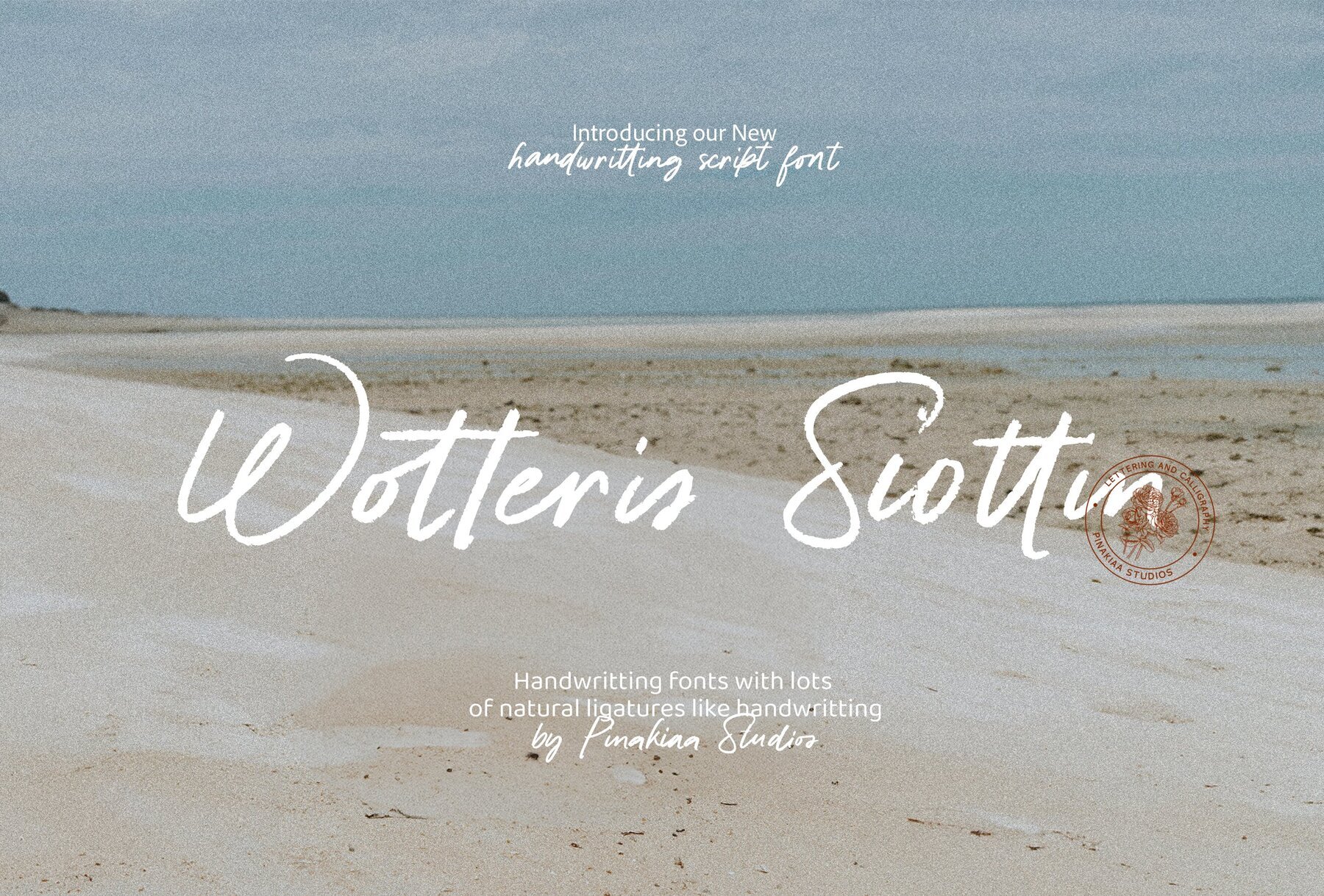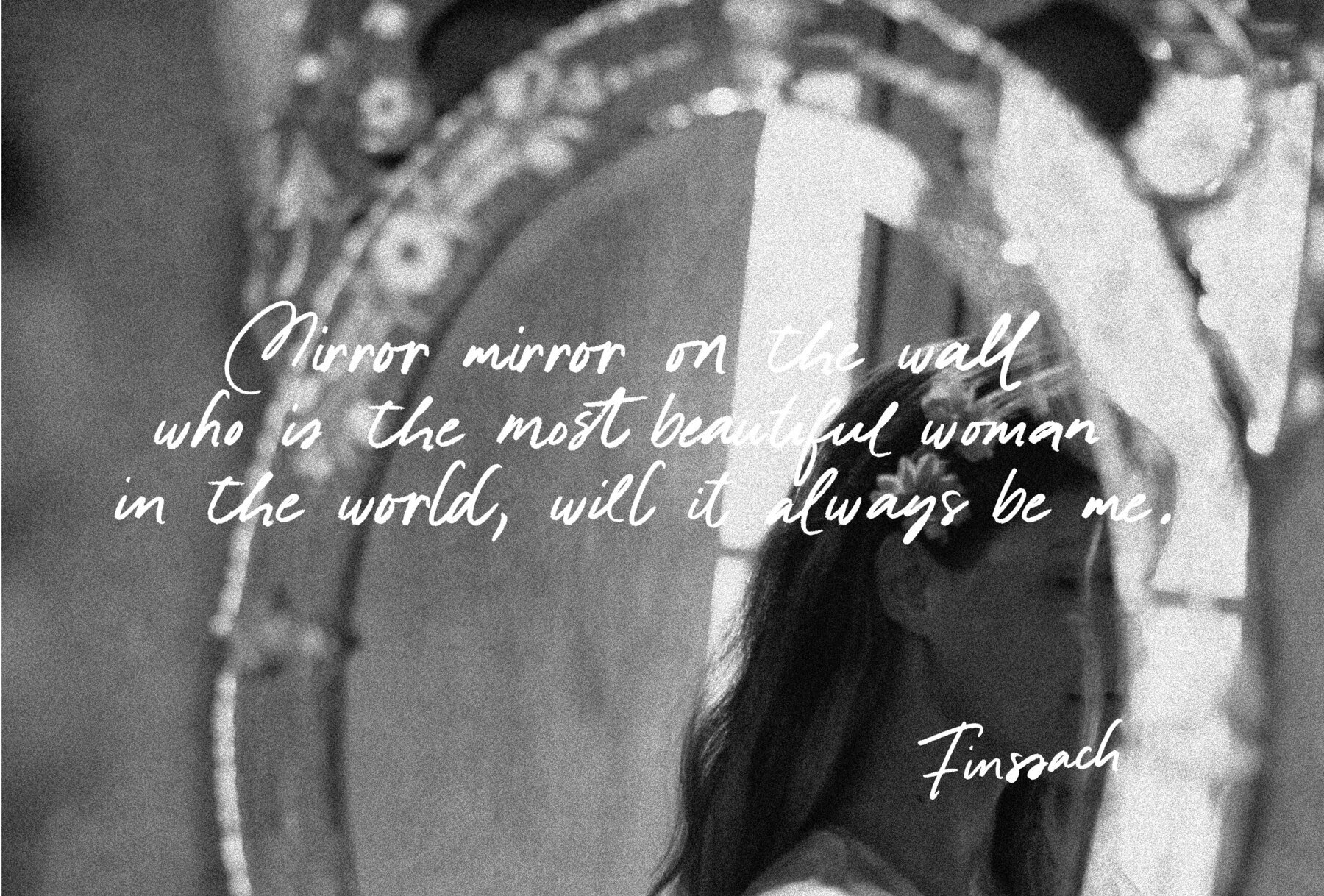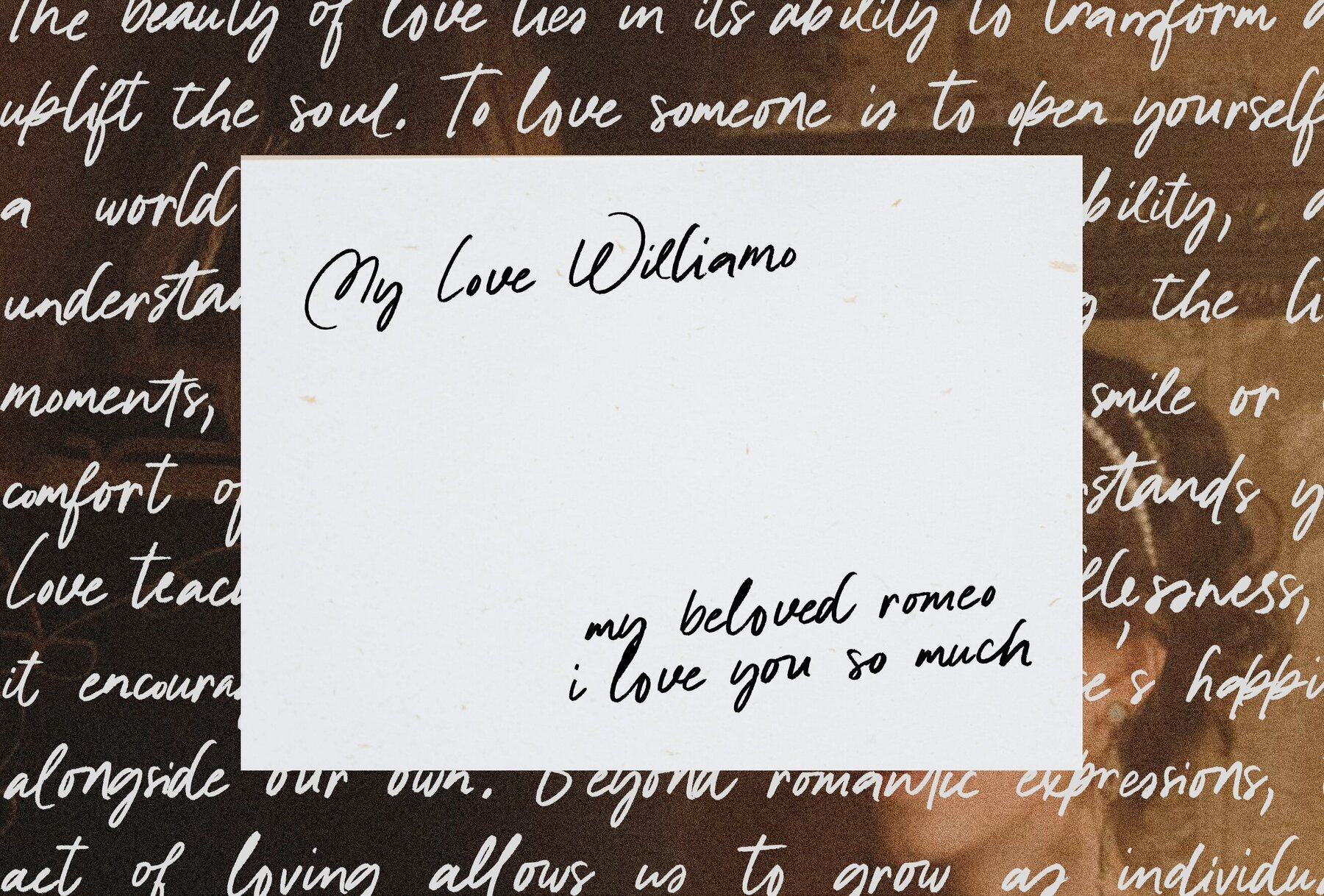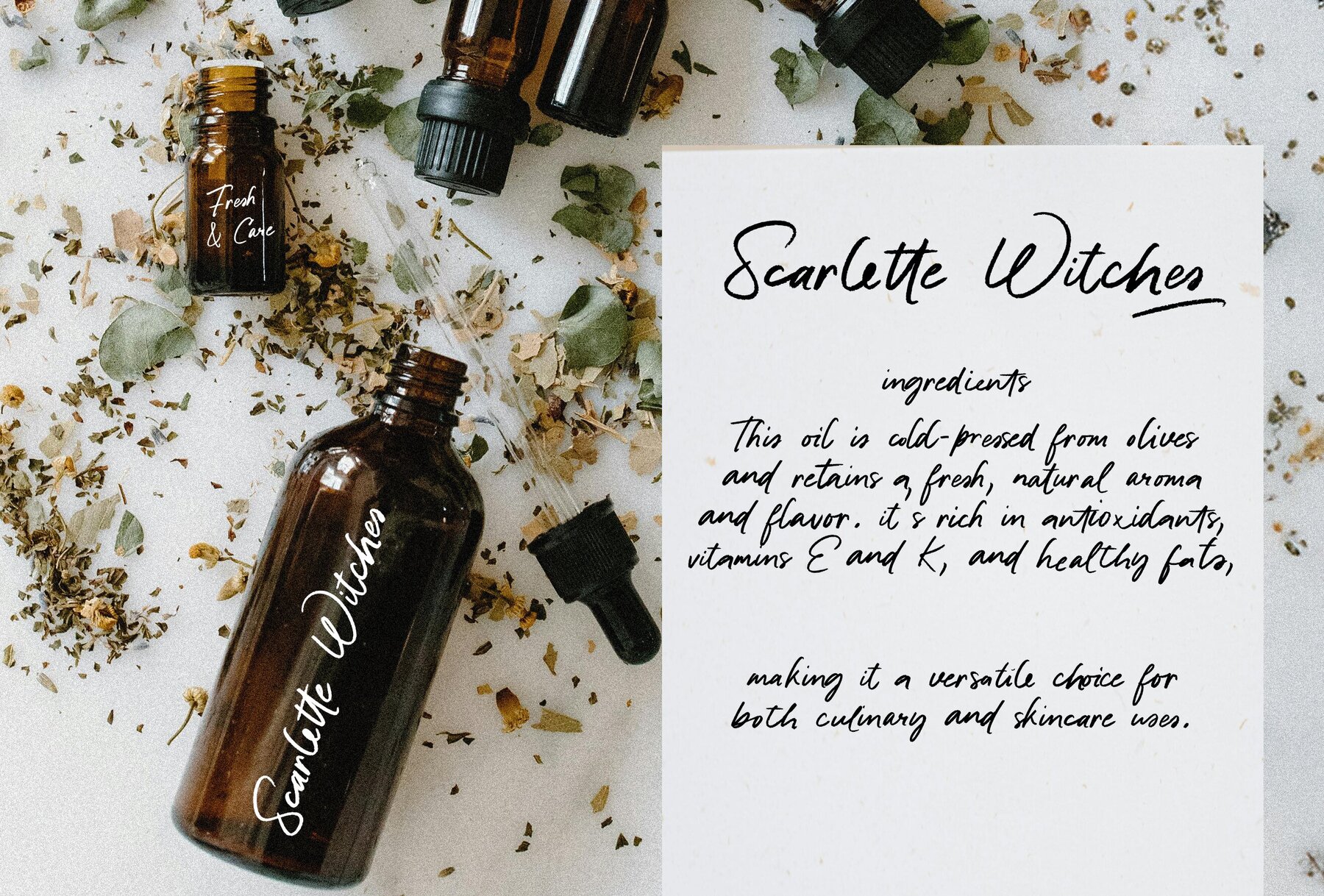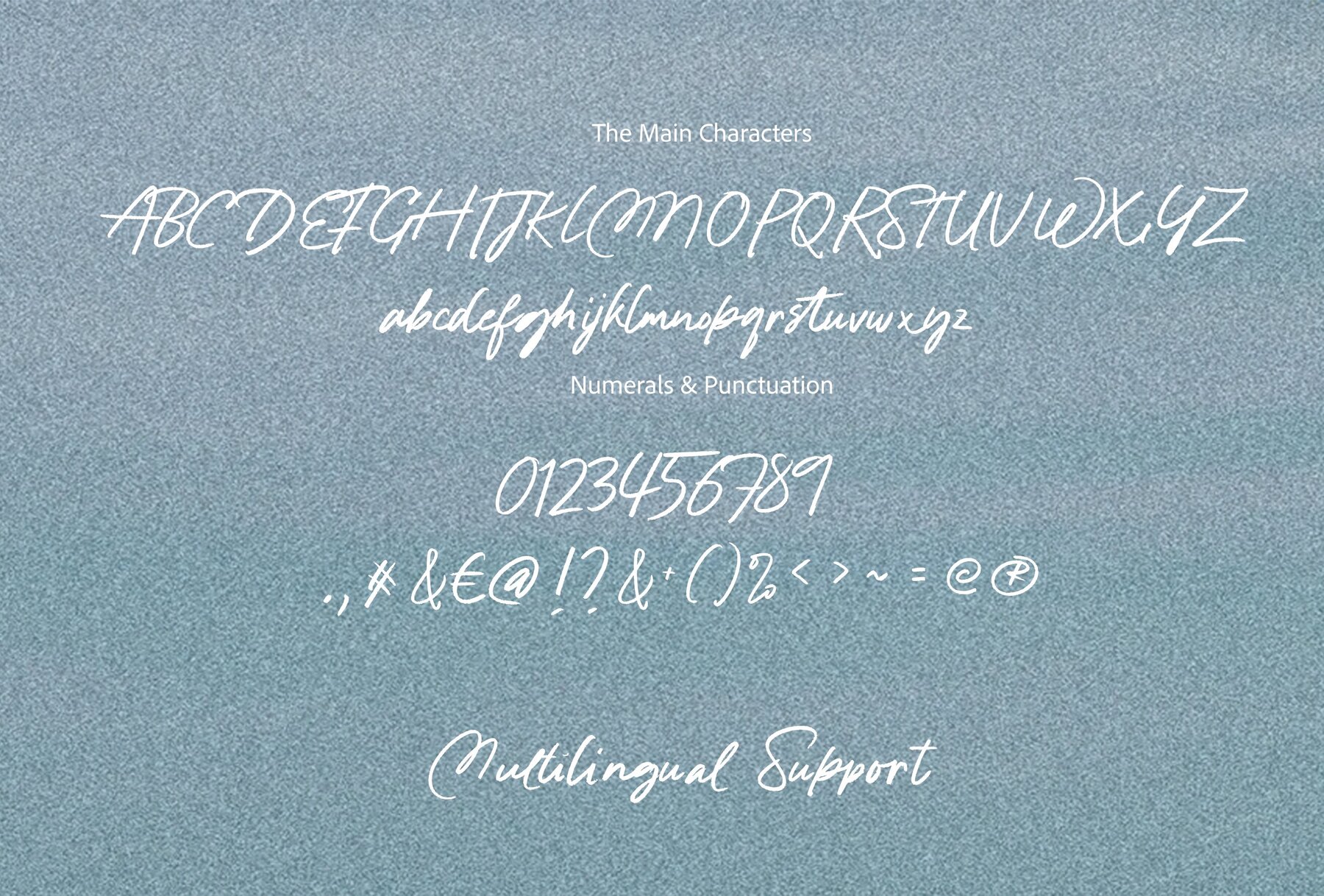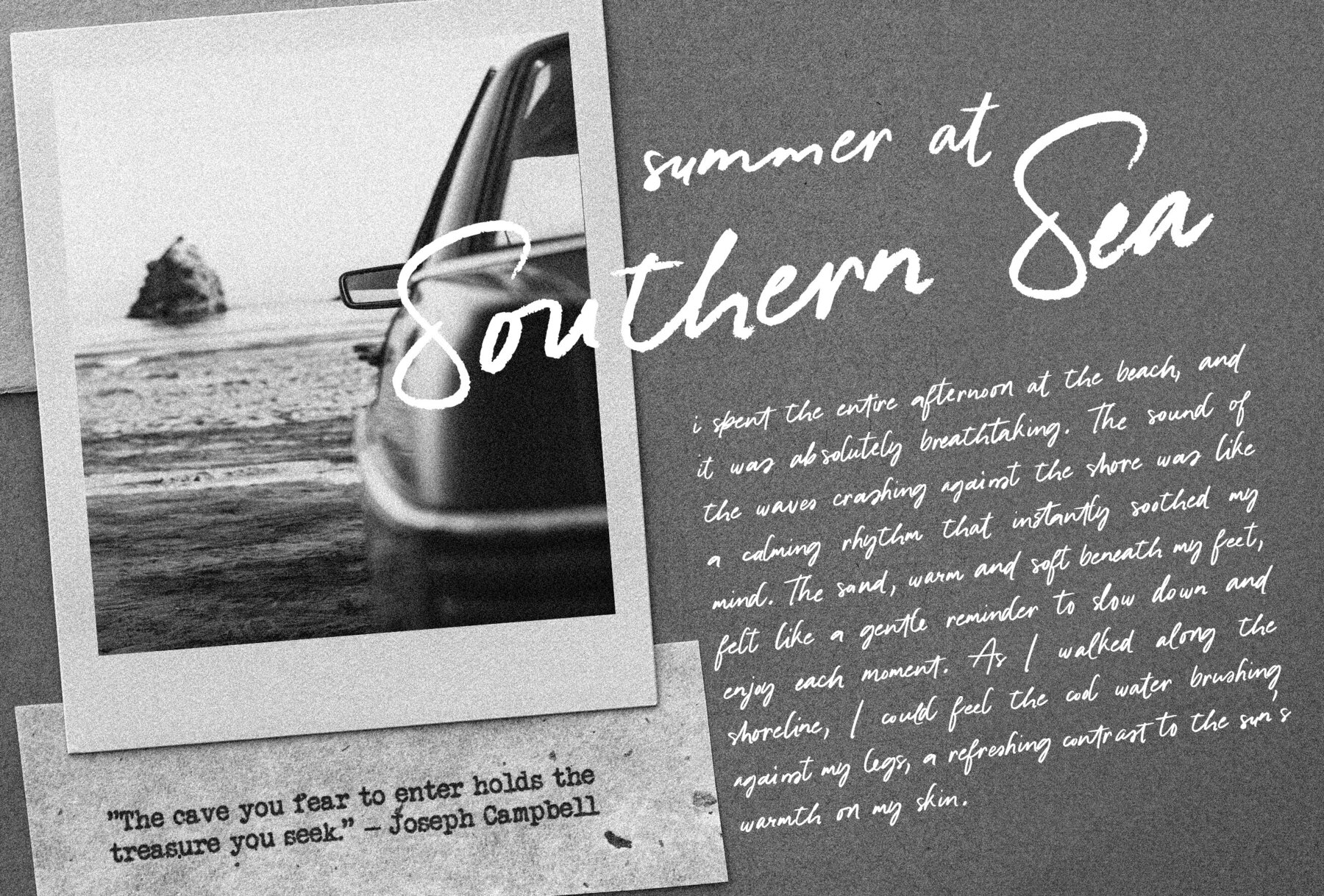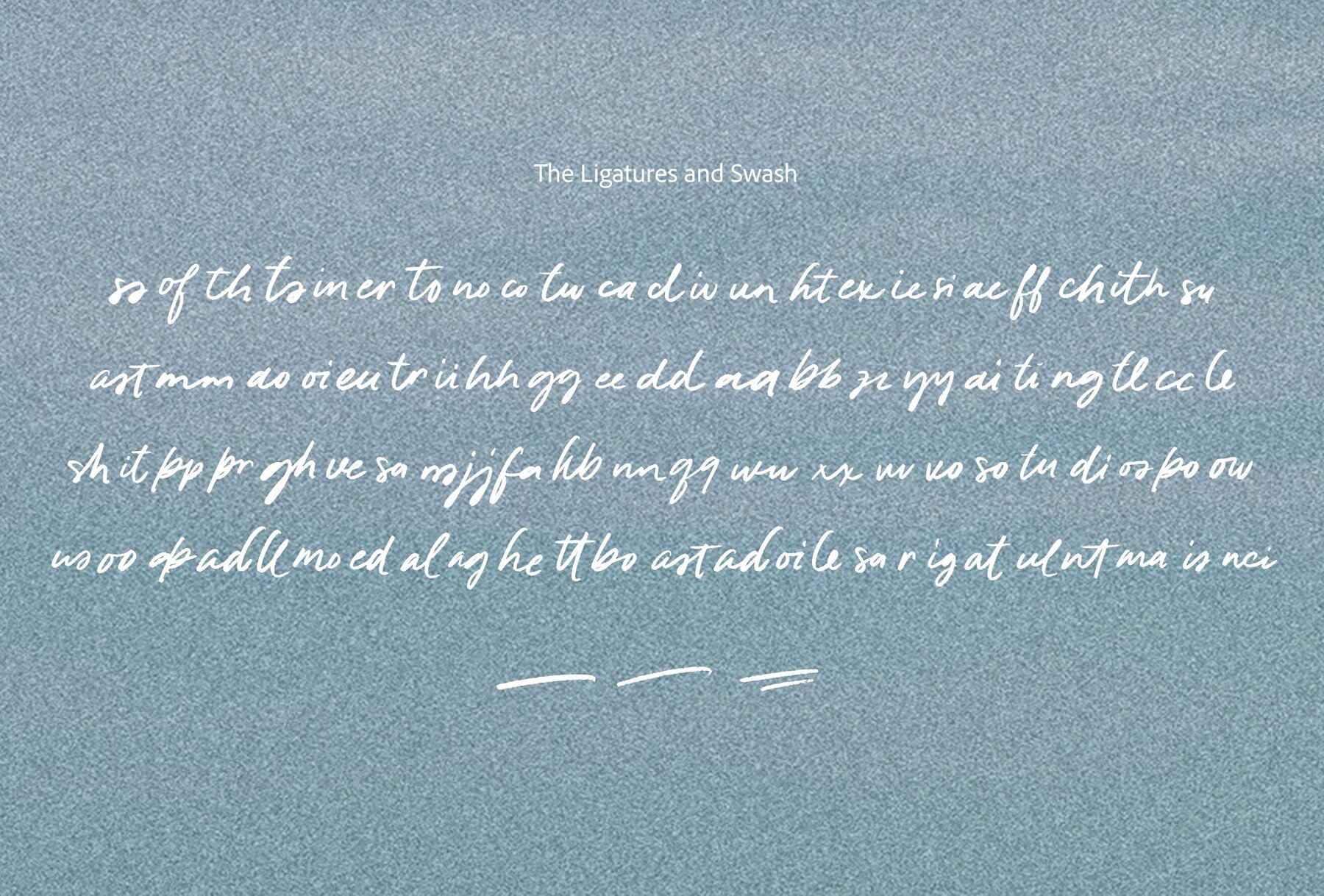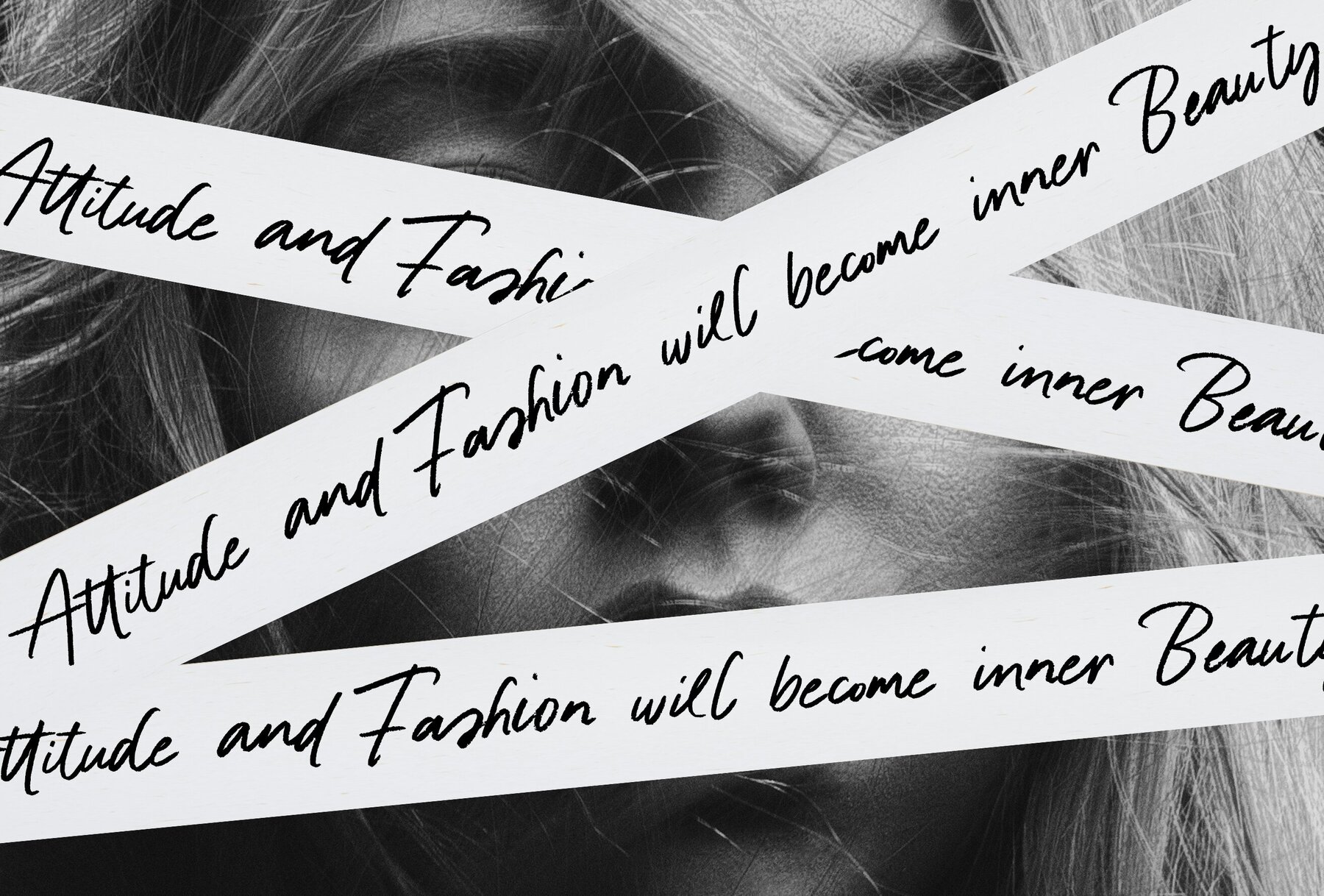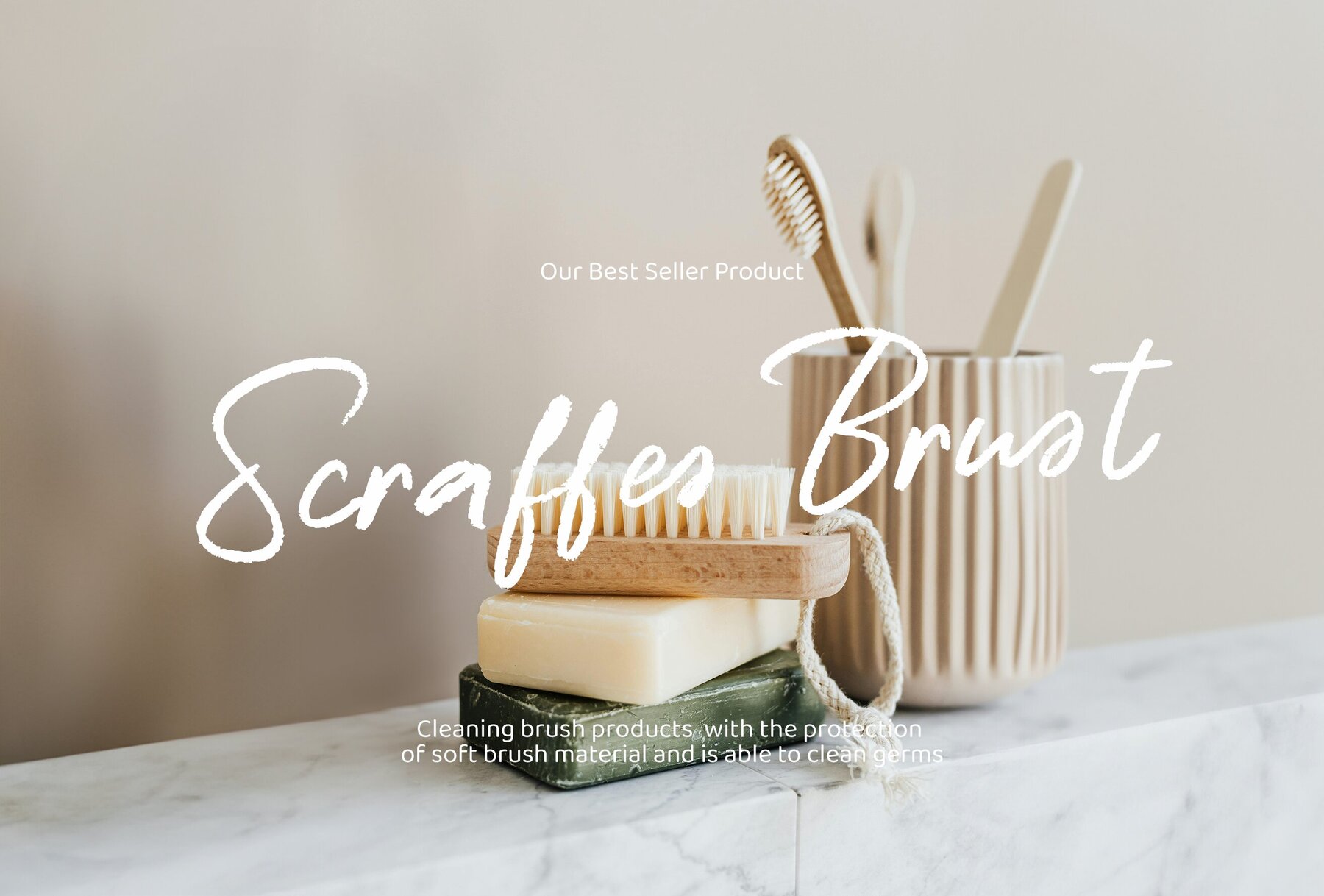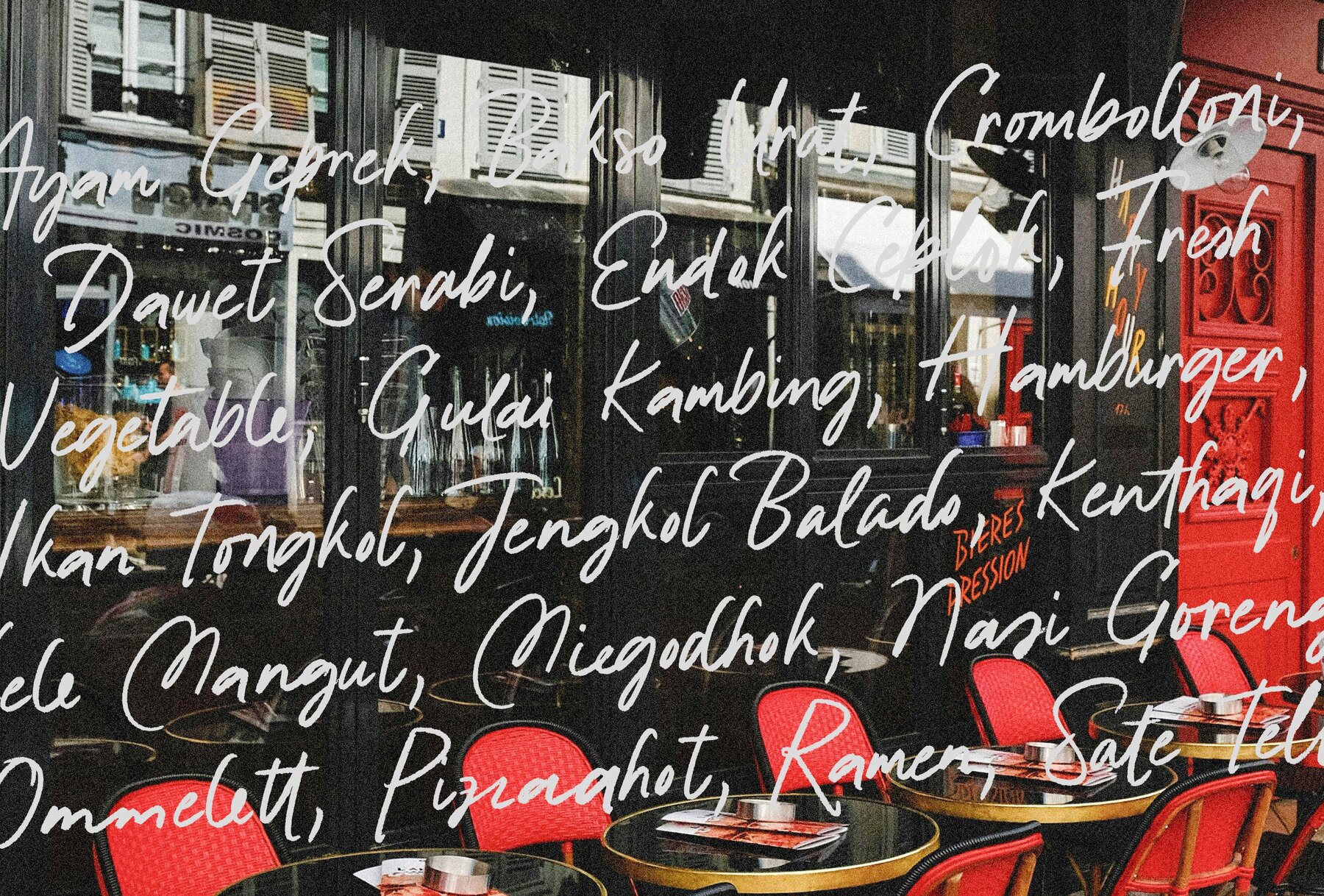
Wotteris Siottin Font
Wotteris Siottin Regular
Wotteris Siottin is a handwriting font that has many connected letters to make it more beautiful and easy to read, because it is like most people's handwriting. I made it simple but didn't reduce the aesthetic value of the handwritting. This font is suitable for use as a product logo, letters, invitation, food menus, or post card for your loved ones, etc.